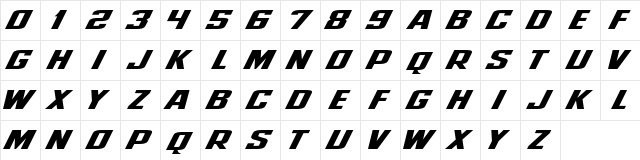
BostonCollegeEagles Regular
Design Context for BostonCollegeEagles Typeface
BostonCollegeEagles has the bold swagger of sports branding: strong, assertive letterforms designed to dominate headlines and jerseys alike.
Built for sports team identities, athletic apparel, event posters, and high-energy promotional material.
Pro Tip: BostonCollegeEagles thrives on contrast — try it large, bold, and tight against a clean background for maximum visual impact.